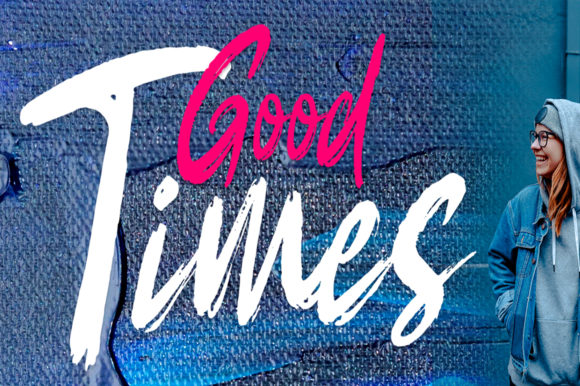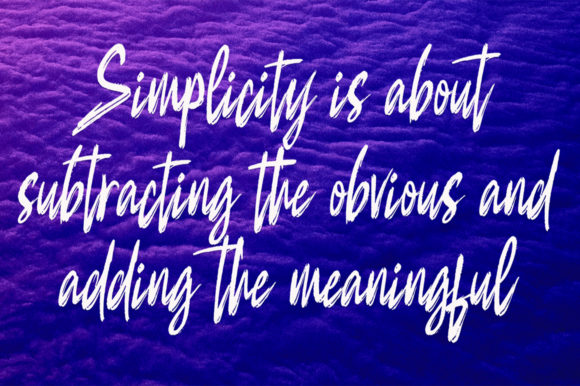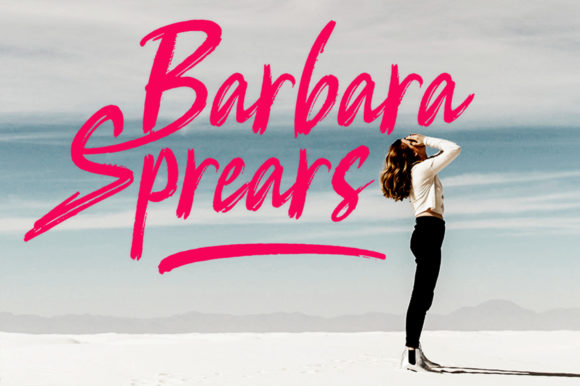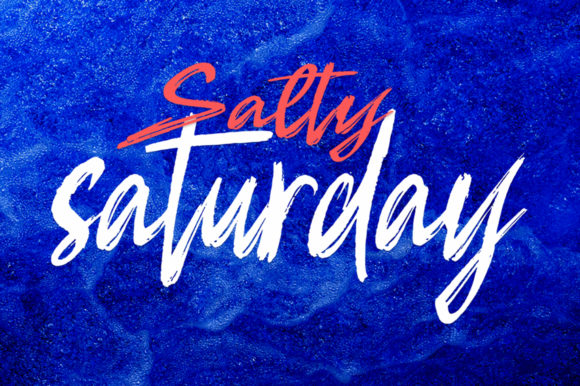
Introduction to Hot Ink Font
Hot Ink is a casual, fun handwritten font, created by using a brush pen.
Clean and a little bit quirky, this font is the perfect fit for all of your logos, branding, social media, and crafty DIY projects .